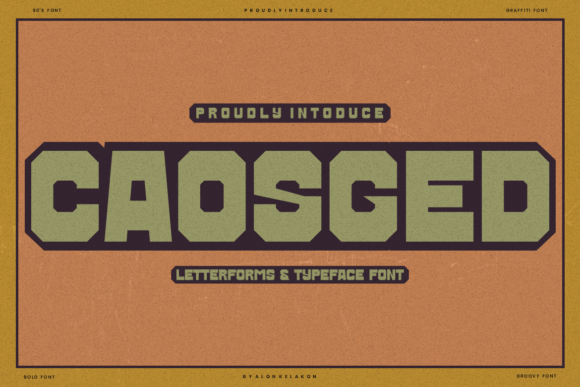
Introducing Caosged Font: The Ultimate Retro Bold Typeface
In the world of typography, few fonts manage to evoke the same level of nostalgia and style as Caosged. This dynamic retro bold typeface is a masterful blend of classic 80s and 90s aesthetics, with a modern edge that makes it perfect for a wide range of design applications. From statement logos and posters to streetwear designs and editorial headlines, Caosged is the ultimate font for designers looking to make a bold statement.
The Inspiration Behind Caosged
Caosged’s chunky, geometric letterforms are inspired by the iconic typography of the 80s and 90s. During this era, graffiti and street art were at the forefront of the design world, with bold, colorful lettering dominating the urban landscape. Caosged’s designers sought to capture the essence of this style, while infusing it with a modern sensibility that makes it relevant for contemporary design projects.
What Makes Caosged So Unique?
So, what sets Caosged apart from other fonts on the market? Here are just a few key features that make this typeface truly special:
- Retro charm: Caosged’s bold, geometric letterforms are reminiscent of classic 80s and 90s typography, making it perfect for designers looking to evoke a sense of nostalgia in their work.
- Modern edge: Despite its retro inspiration, Caosged has a distinctly modern feel that makes it suitable for a wide range of design applications, from streetwear to editorial design.
- Graffiti-style: Caosged’s font style is inspired by the world of graffiti and street art, giving it a bold, edgy feel that’s perfect for making a statement.
- Highly versatile: Whether you’re designing a logo, poster, or editorial headline, Caosged is a highly versatile font that can be used in a wide range of contexts.
Using Caosged in Your Design Projects
So, how can you use Caosged in your design projects? Here are just a few ideas to get you started:
Statement Logos
Caosged’s bold, geometric letterforms make it perfect for creating statement logos that demand attention. Whether you’re designing a logo for a new business or rebranding an existing company, Caosged is a great choice.
Posters and Flyers
Caosged’s retro charm and modern edge make it a great choice for posters and flyers. Whether you’re promoting a concert, sale, or event, Caosged is sure to grab attention.
Streetwear Designs
Caosged’s graffiti-style font is a natural fit for streetwear designs. Whether you’re designing a t-shirt, hoodie, or hat, Caosged is a great choice for adding a bold, edgy touch to your design.
Editorial Headlines
Caosged’s bold, geometric letterforms make it perfect for editorial headlines. Whether you’re designing a magazine, newspaper, or online publication, Caosged is a great choice for adding a touch of style and sophistication to your headlines.
Tips for Getting the Most Out of Caosged
Here are just a few tips for getting the most out of Caosged:
- Experiment with different colors: Caosged’s bold, geometric letterforms look great in a wide range of colors. Don’t be afraid to experiment and find the perfect color scheme for your design.
- Play with texture and patterns: Caosged’s graffiti-style font looks great with texture and patterns. Consider adding a texture or pattern to your design to give it an extra layer of depth and interest.
- Mix and match with other fonts: Caosged is a highly versatile font that pairs well with a wide range of other fonts. Consider mixing and matching Caosged with other fonts to create a unique and eye-catching design.
In conclusion, Caosged is a dynamic retro bold typeface that’s perfect for designers looking to add a touch of nostalgia and style to their work. With its chunky, geometric letterforms and graffiti-style font, Caosged is a highly versatile font that can be used in a wide range of design applications. Whether you’re designing a statement logo, poster, streetwear design, or editorial headline, Caosged is a great choice.